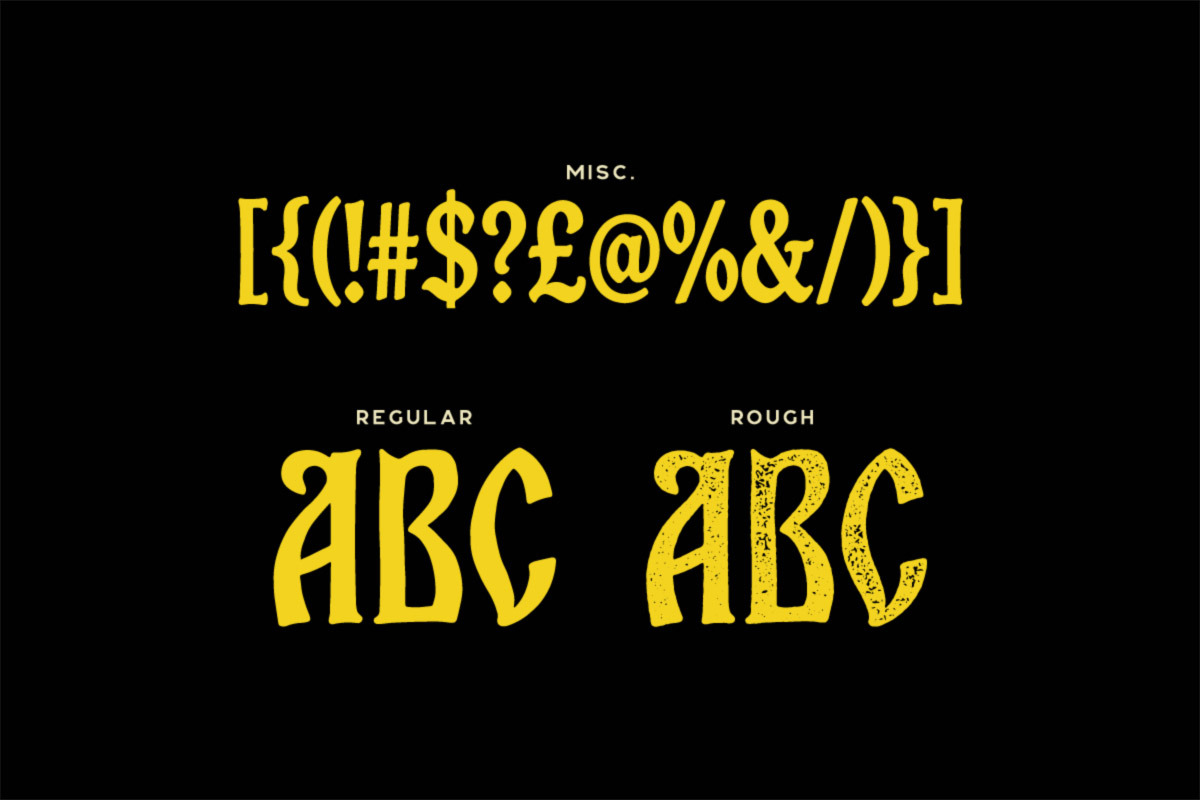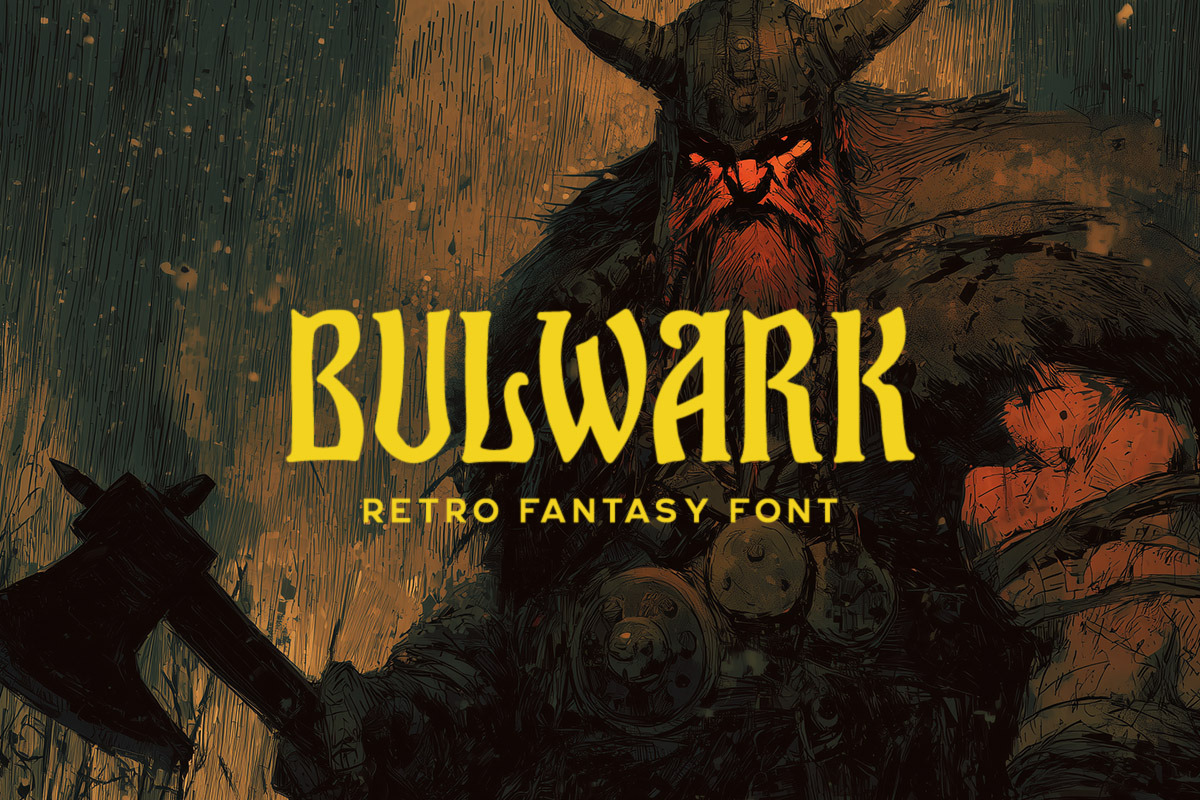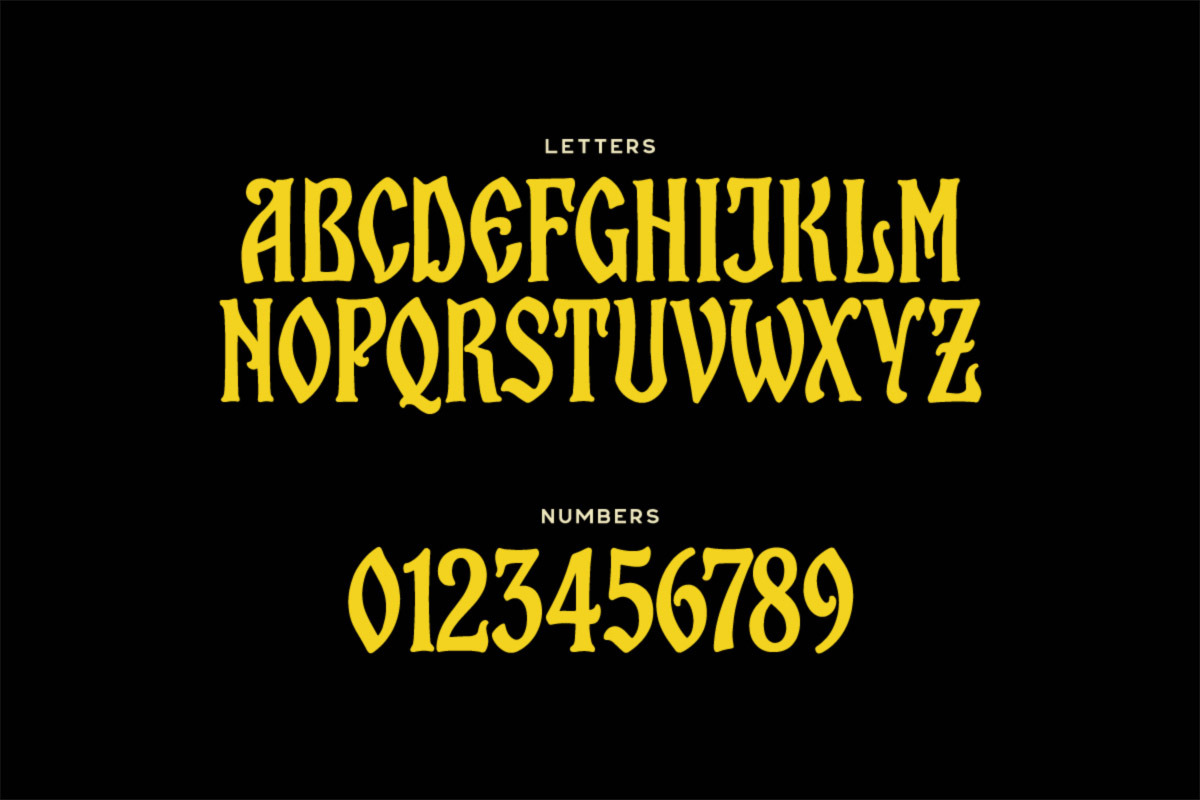
Bulwark Typeface
Bulwark is a bold retro fantasy display font inspired by classic sword & sorcery artwork and vintage book covers. With regular + rough styles, it’s perfect for RPG branding, game titles, fantasy logos, posters, and powerful medieval-themed designs.